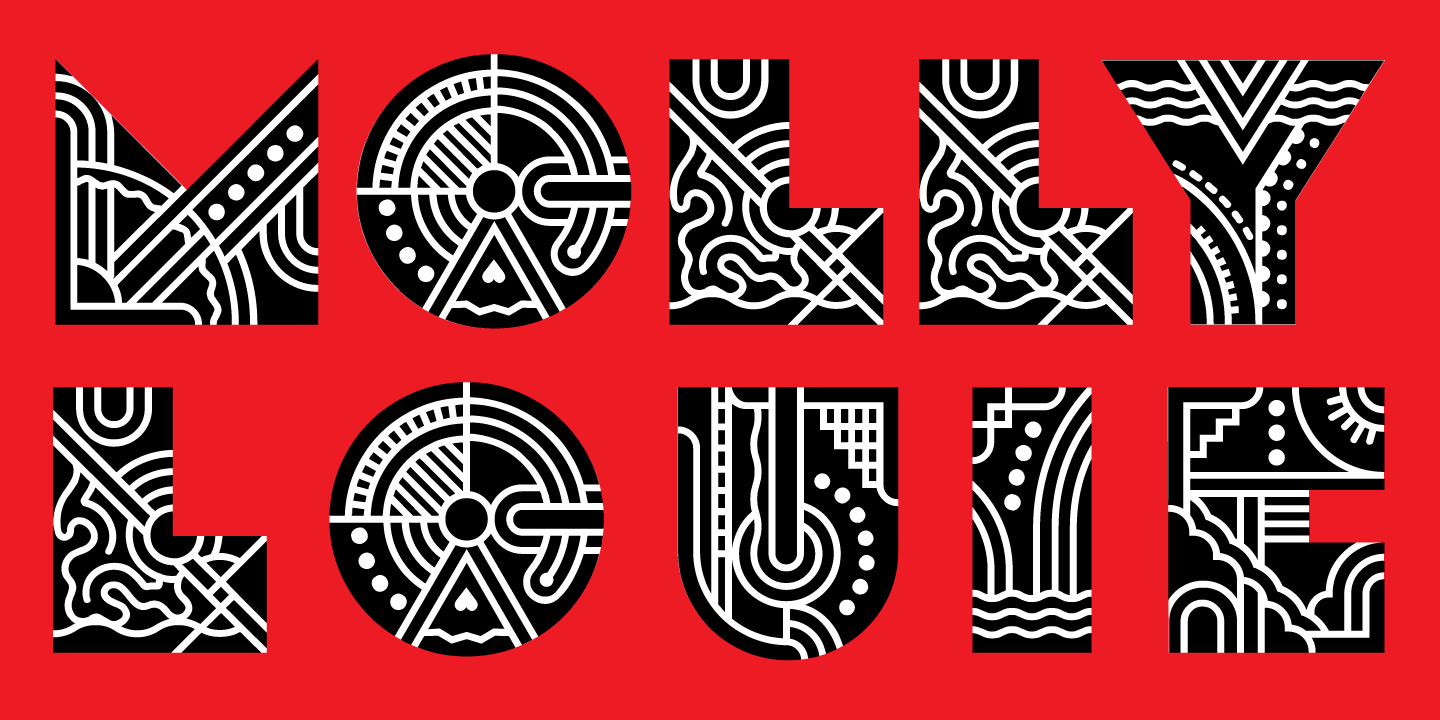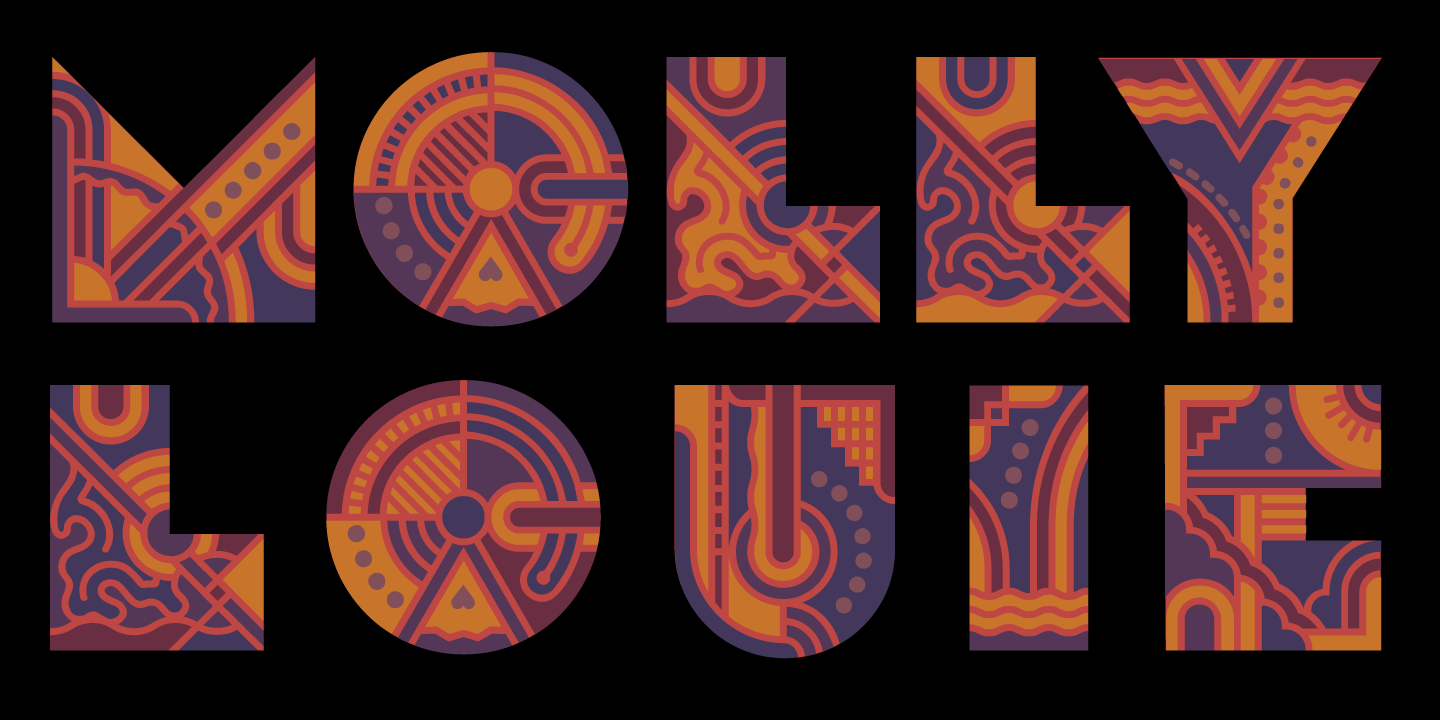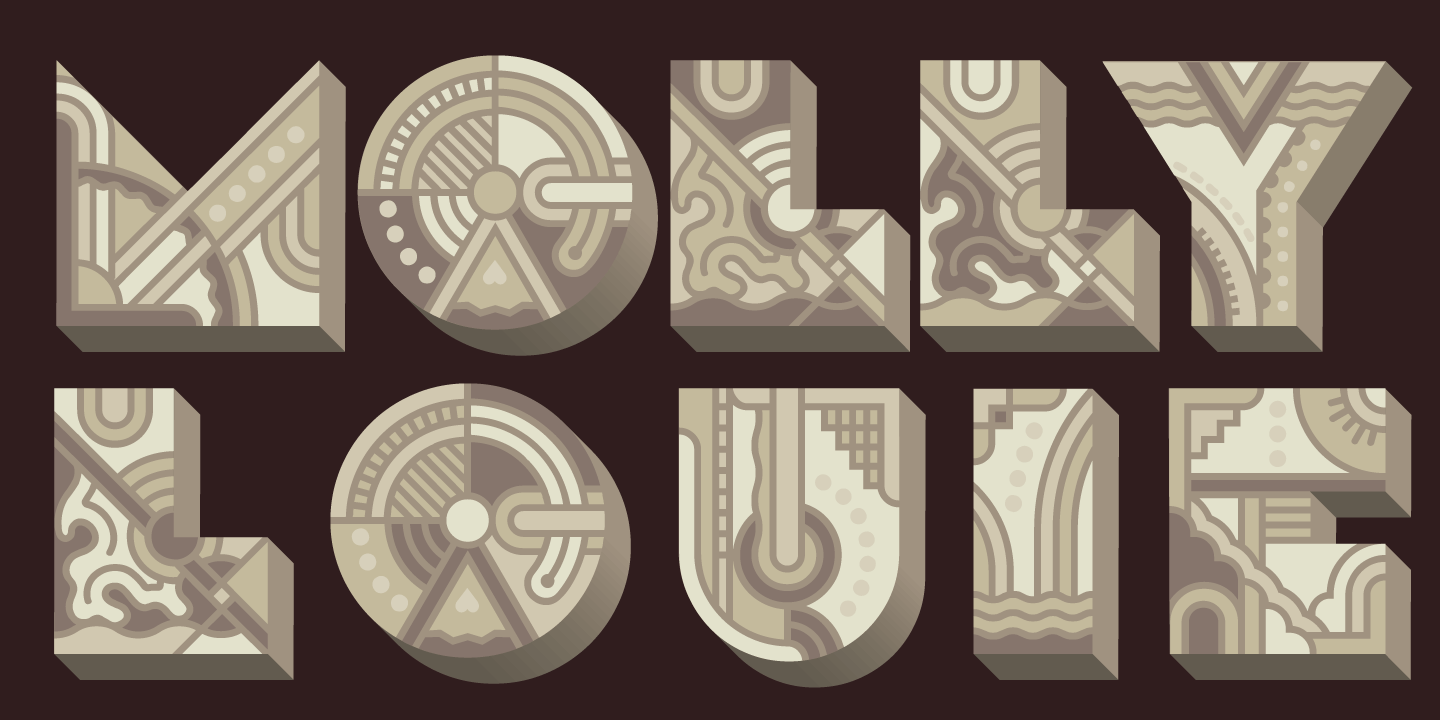
About Molly Louie
Conceived on a cold winter evening to the hot Jazz of the Eri Yamamoto Trio at Arthur's Tavern in the Village, font Molly Louie is best described by the person for whom it was named. "Very intricate, like a whole little world in each of them"…